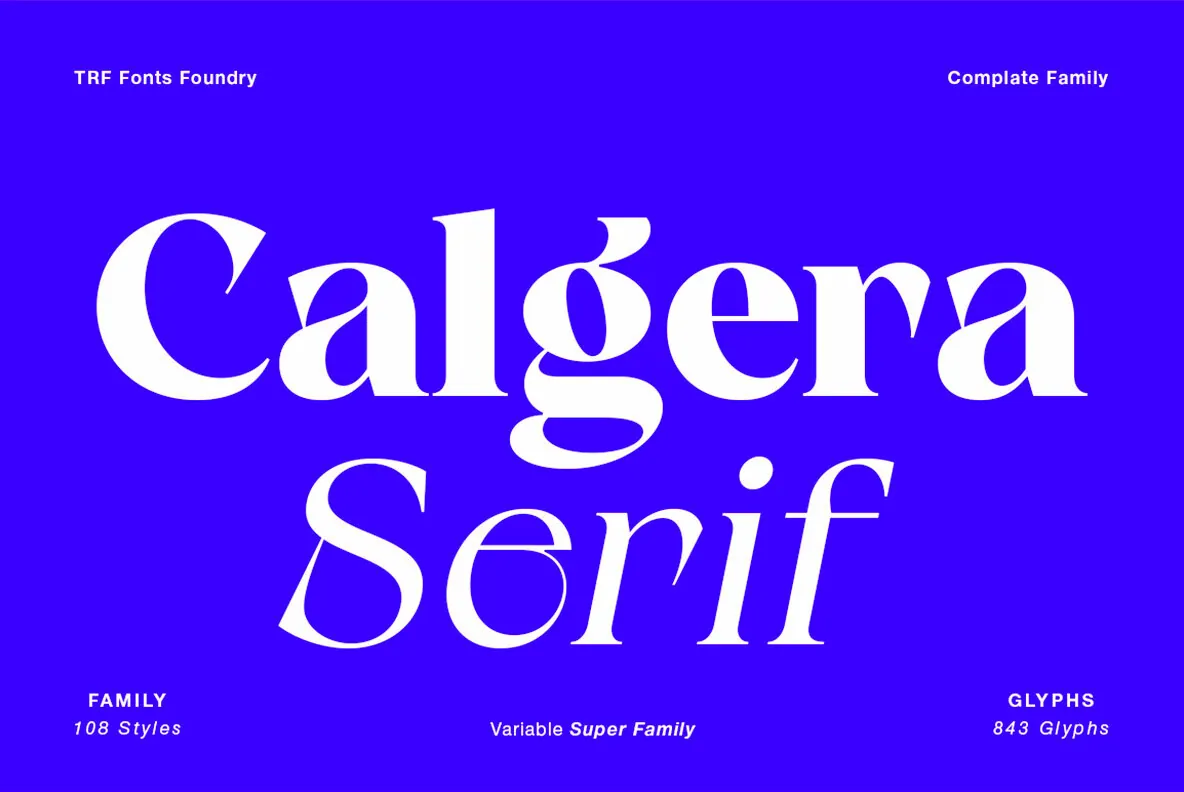
Calgera Font
Calgera is a contemporary serif typeface with a distinctive look. Calgera creates an unique character, with different stylistic sets you can change the feel of your design from more organic to more standard. with 9 weights ranging from Thin to Black. This is an elegant font, with beautiful and harmonious alternate, which makes it ideal for use in magazines, in the fashion industry, branding, logo design, dynamic packaging and countless other projects. When starting this project, we wanted to try to draw a modern serif with the precisely verified shapes and detailed elaboration of each character, making your text look great both on paper and on the screens.
• 108 styles
• 843 glyphs and 441 characters in each style
• Support for more than 48+ languages
• 27 OpenType features in each style
• 4 variable exes (Weight, Width, Slant, Contrast)